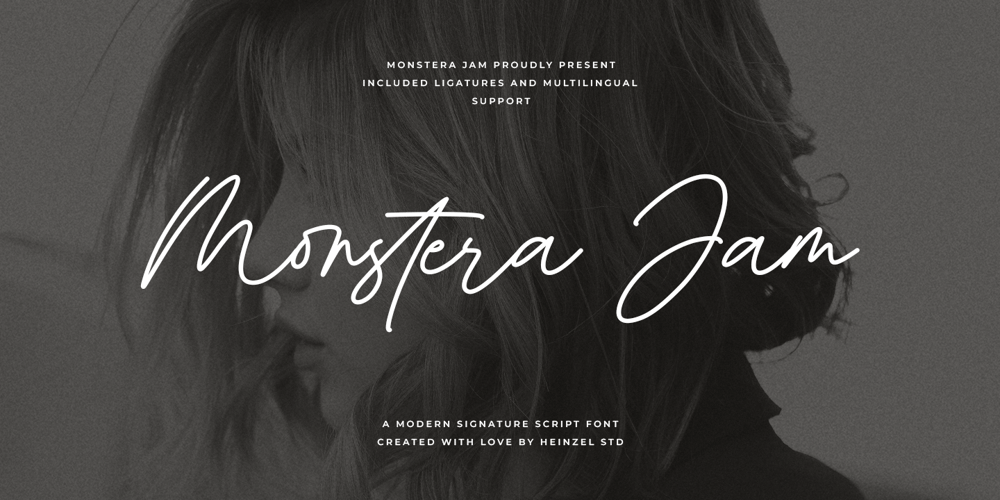
Monstera Jam Font Family was designed by Nofi Sofyan Hadi and published by Heinzel Std. Monstera Jam contains 2 styles and family package options. Monstera Jam is a Signature Script Font, described by an elegant touch, perfect for your favorite projects. It looks stunning on wedding invitations, thank you cards, quotes, greeting cards, logos, business cards, social media, magazines, marketing materials, and every other design which needs a handwritten touch. Fall in love with its incredibly distinct and timeless style and use it to create spectacular designs!Monstera Jam Features: Regular and Bold Version Uppercase and Lowercase Numerical and Punctuation Ligatures PUA Encoded Multilingual Language Easy To Use